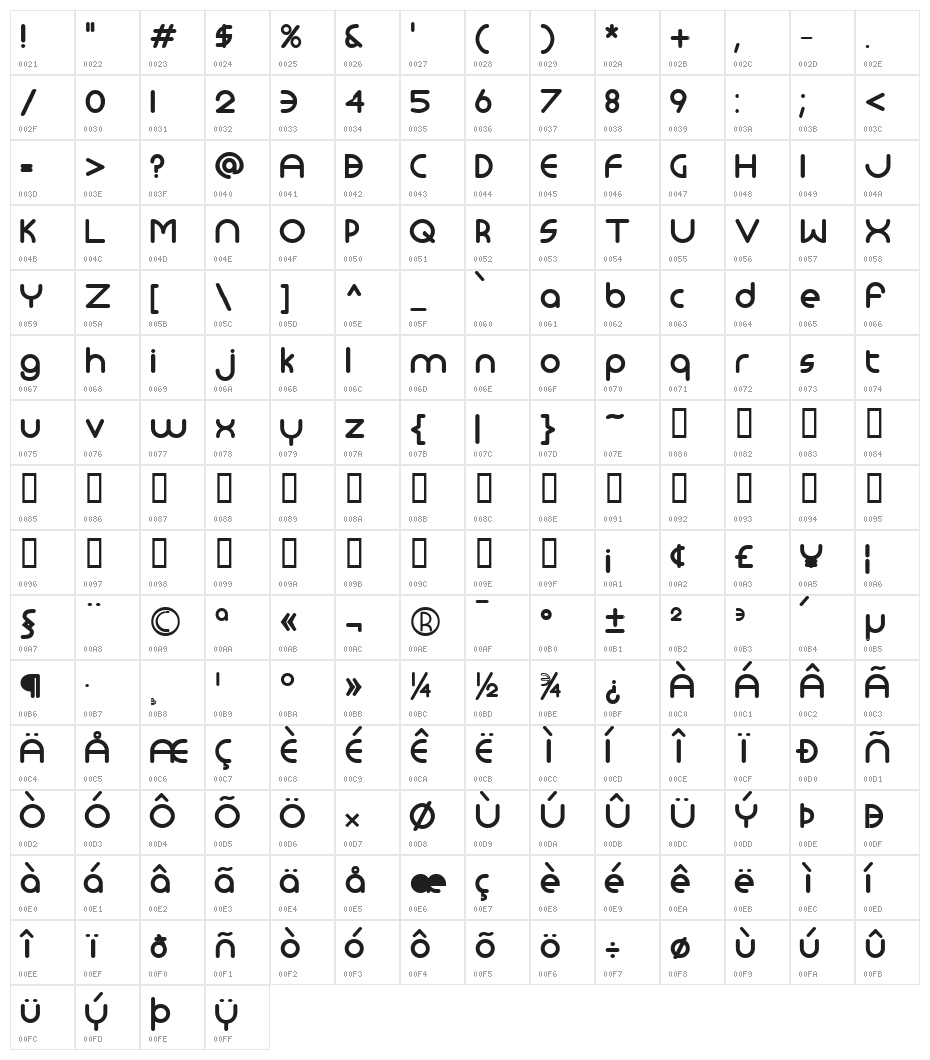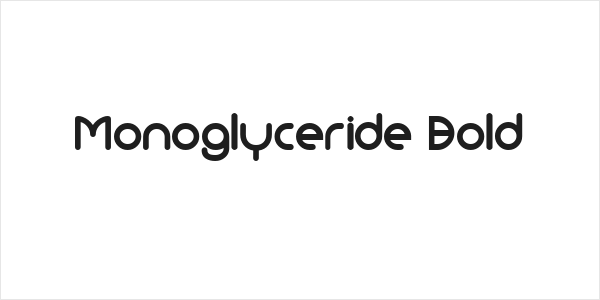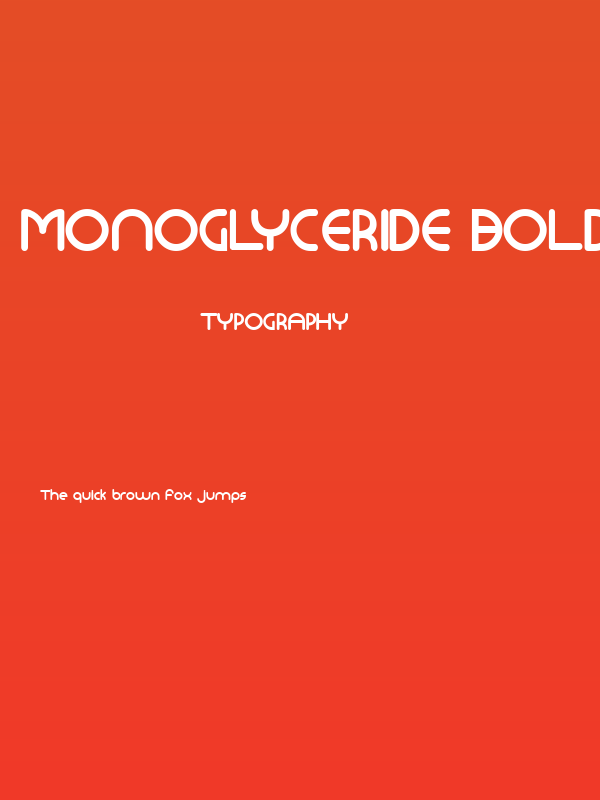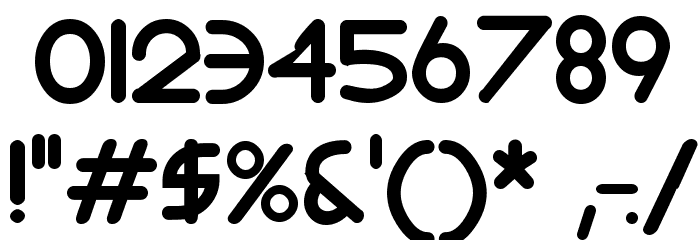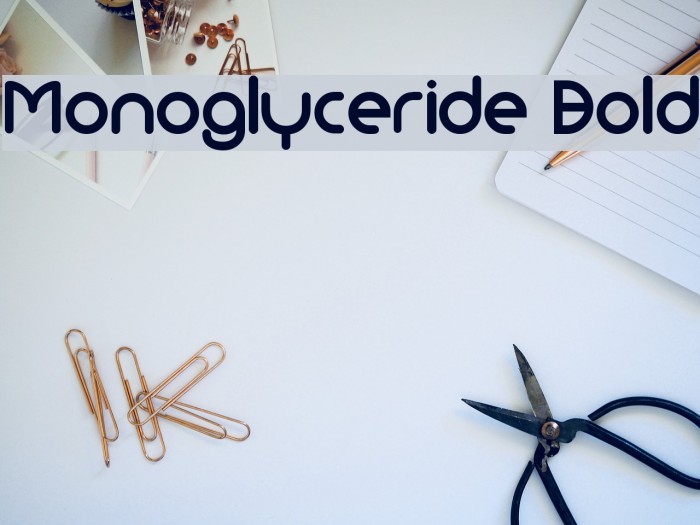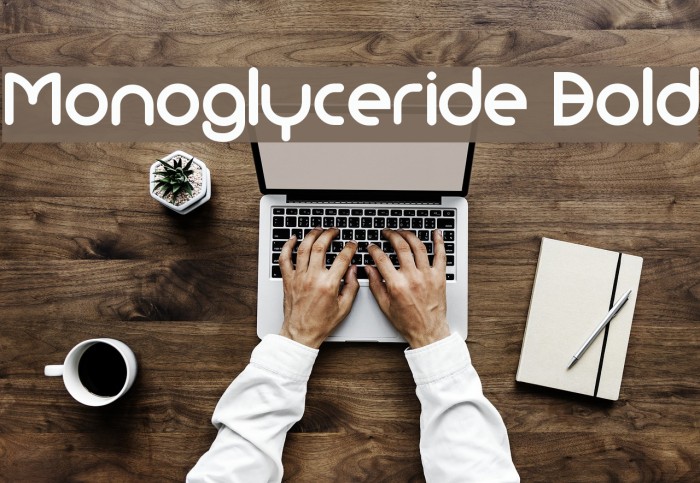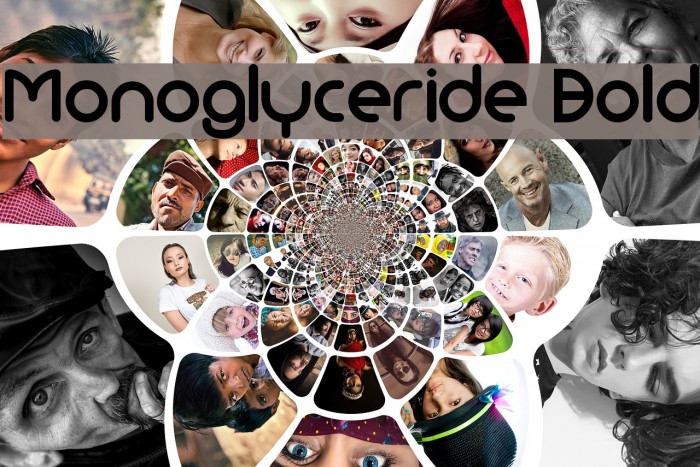
Monoglyceride Bold Font
This font features a bold, rounded style with a modern and playful aesthetic. The characters are evenly weighted, providing a consistent and smooth appearance. The rounded edges give it a friendly and approachable feel, making it suitable for a variety of design applications. The uniformity in stroke width across all characters ensures readability while maintaining a unique visual appeal. Its geometric shapes and clean lines make it ideal for contemporary designs, where a touch of personality is desired without compromising clarity.
| Proposed Projects | Ideal for branding, advertising, children's books, and digital media projects where a friendly and modern look is desired. |